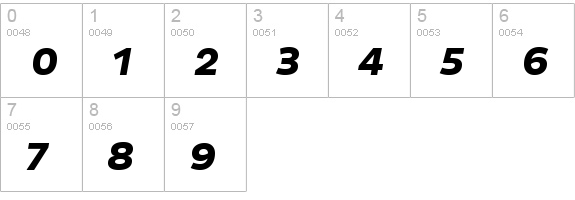
Pluto Bold Italic is a strong, high-contrast, italic variant in the Pluto typeface family \xE2\x80\x94 well suited to headlines, attention-grabbing titles, and strong calls-to-action.